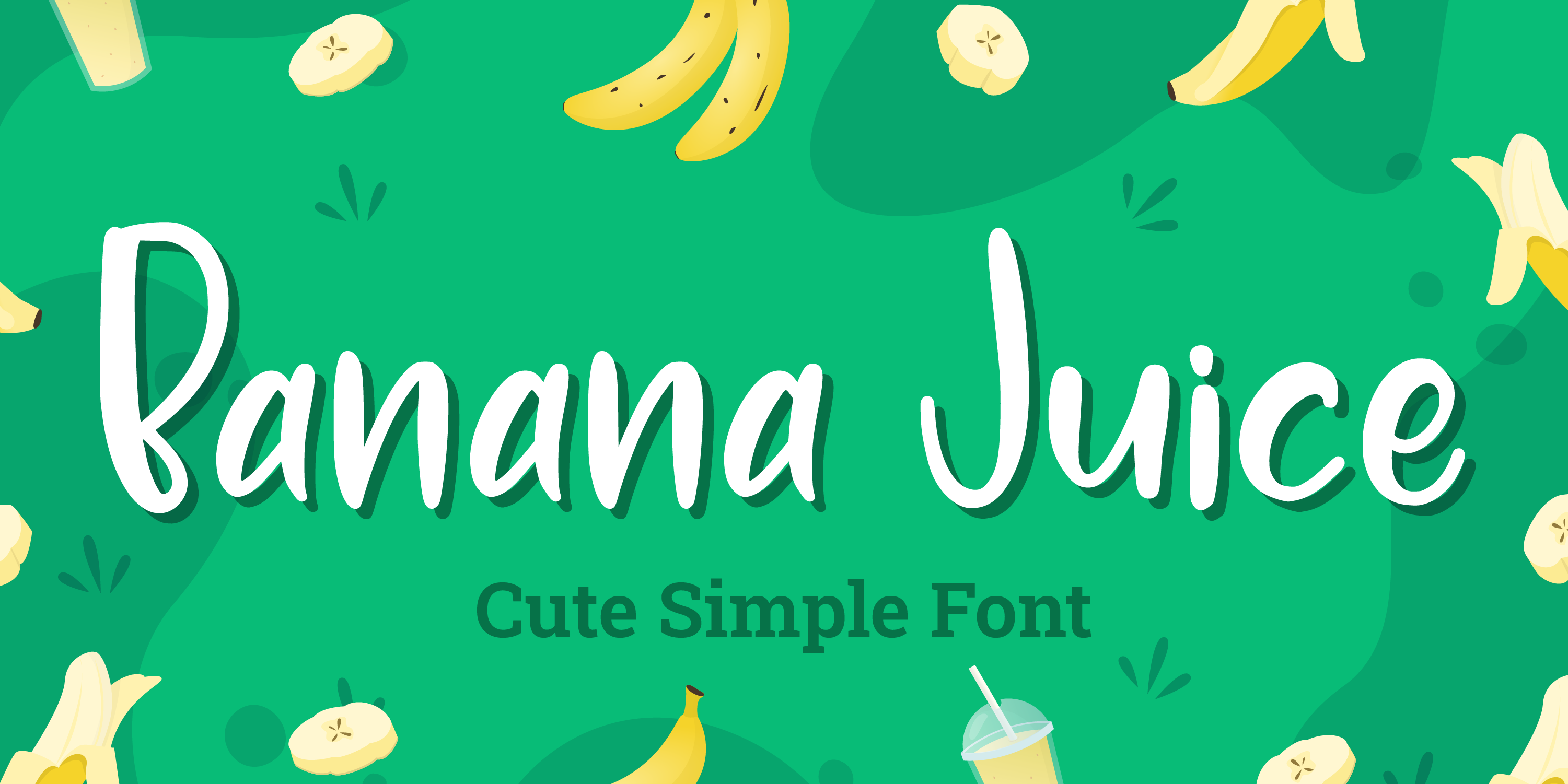
Banana Juice Font is perfect for tropical smoothie bar branding, organic juice packaging, healthy café signage, fruit market displays, summer festival posters, children's vitamin labels, tropical resort graphics, fresh produce advertising, health food store materials, and vibrant breakfast menu designs.
What makes Banana Juice Font so exciting is its refreshing embodiment of tropical vitality and natural sweetness through playfully curved letterforms that capture the sunny disposition and healthy energy of fresh fruit and wholesome nutrition. The font's design philosophy celebrates the pure joy of natural goodness and tropical flavors, featuring smooth curves, organic proportions, and vibrant details that mirror the creamy texture of ripe bananas, the refreshing splash of fresh juice, and the energizing boost that comes from nature's perfect snack. Each character bursts with tropical sunshine and nutritious appeal, creating a visual language that instantly communicates freshness, health, and the irresistible charm of natural sweetness that makes healthy eating feel like a delicious adventure and joyful lifestyle choice.
The Banana Juice Font family includes tropical variations: Regular, Bold, Light, Medium, Condensed, Extended, Italic, Smooth, and Fresh styles. Each variation maintains the font's characteristic tropical freshness while offering different levels of natural energy and healthy detail for various food, beverage, and wellness design applications.
When searching for a typeface that embodies the essence of tropical health and natural vitality, Banana Juice Font Free Download represents the perfect fusion of organic appeal with refreshing design that elevates any project to new levels of healthy authenticity and tropical charm.
The organically crafted letterforms of Banana Juice Font demonstrate superior attention to natural design principles, featuring smooth proportions, fresh spacing, and healthy curves that ensure optimal readability while maintaining the font's distinctive tropical character. Its versatile design adapts beautifully from intimate smoothie cup labels to expansive juice bar signage.
Professional designers working on health food brands, beverage companies, and wellness organizations particularly value the font's ability to convey natural goodness, tropical appeal, and healthy lifestyle positioning. The typeface works exceptionally well for projects targeting health-conscious consumers, tropical enthusiasts, and anyone seeking to project fresh positioning and natural excellence.
The comprehensive OpenType features of Banana Juice Font include organic alternates, fresh ligatures, and specialized tropical characters that enable designers to create authentic healthy typography while maintaining the font's distinctive natural character throughout all design elements and wellness applications.